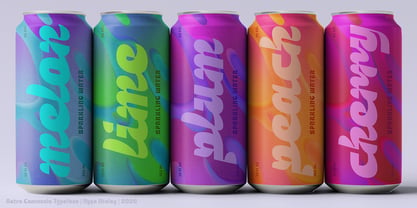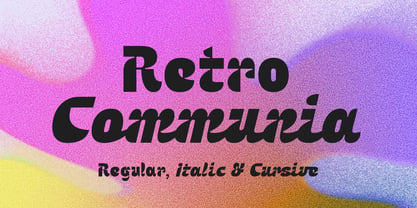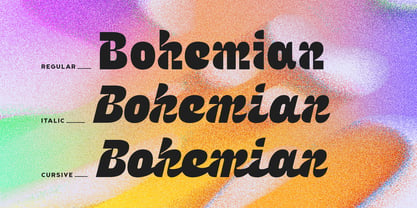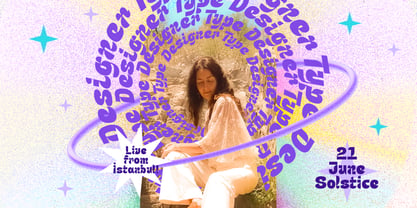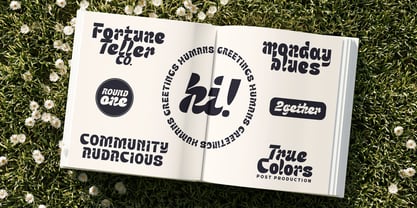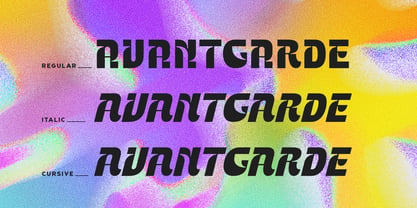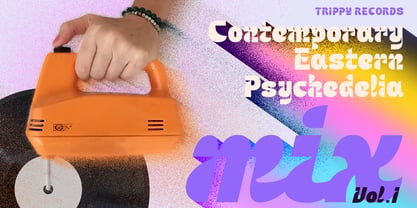
Retro Communia
por Ayca Atalay
Retro Communia is a bold and daring display typeface that comes in three distinct styles: Regular, Italic, and Cursive.
With its vintage flair and wild expressiveness, this font is sure to be an eye-catcher in any context.
Ideal for branding, packaging, and user interfaces, Retro Communia stands out with its unique character and versatility, making it a perfect choice for projects that require a touch of boldness and creativity.
Features:
- Three Font Styles: Regular, Italic, and Cursive
- Uppercase and Lowercase Letters
- Complete Set of Punctuation Marks
- Numerals and Fractions
- Multilingual Support